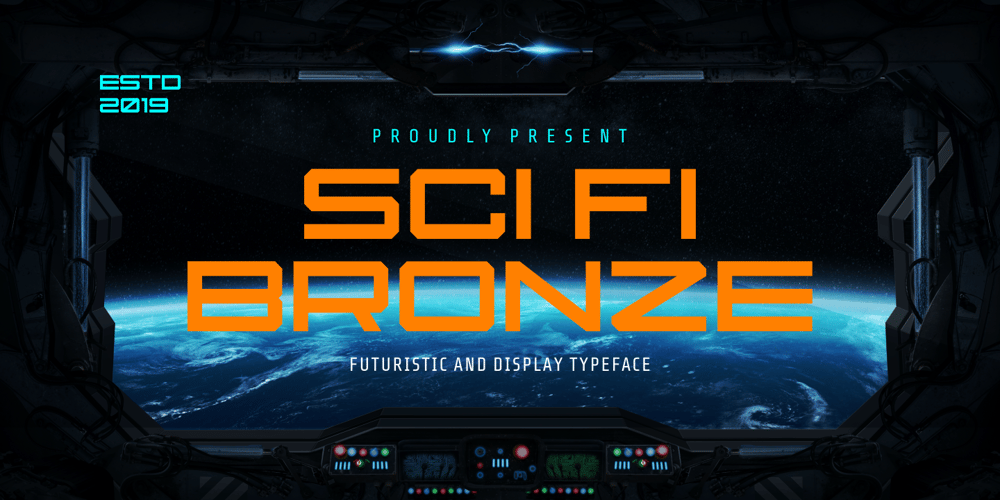
Sci Fi Bronze Font Family was designed by Muhammad Hasan and published by Fype Co. Sci Fi Bronze contains 1 styles and family package options. Sci Fi Bronze can make your design look modern and futuristic. This fonts suitable for logotype, packaging, branding, header, film poster, and more design about space, high tech, and futuristic feel.